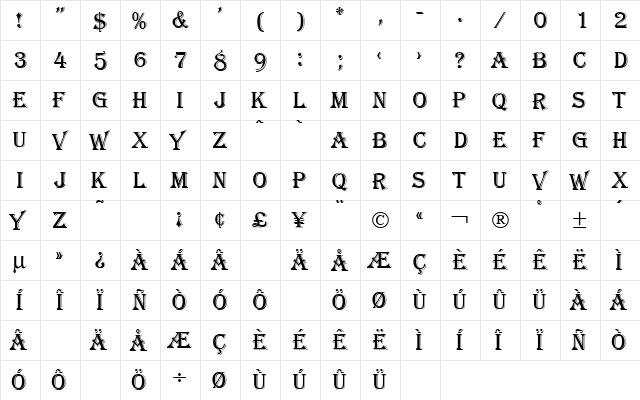
GazetteCapsSSK Regular
Design Context for GazetteCapsSSK Typeface
GazetteCapsSSK takes a measured approach to typography — its balanced proportions and neutral character make it a reliable workhorse for both digital and print work.